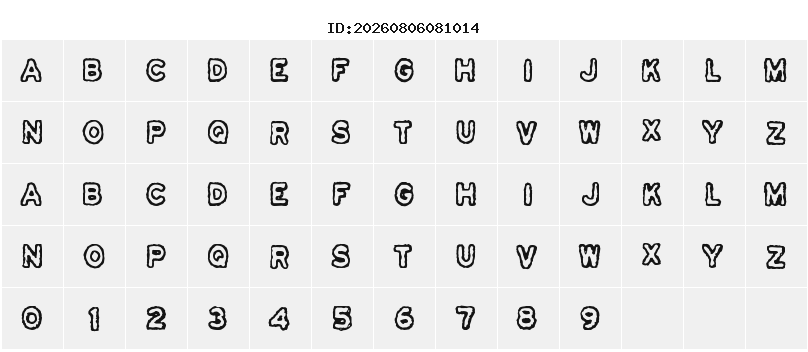
Osasto 329 suljettu Preview
• Font Name: Osasto 329 suljettu
• Designer: Juha Korhonen
About Osasto 329 suljettu.ttf
Osasto 329 suljettu.ttf is a modern, elegant sans-serif font designed for ultimate readability and visual harmony. Perfect for branding, headlines, web design, and print materials.